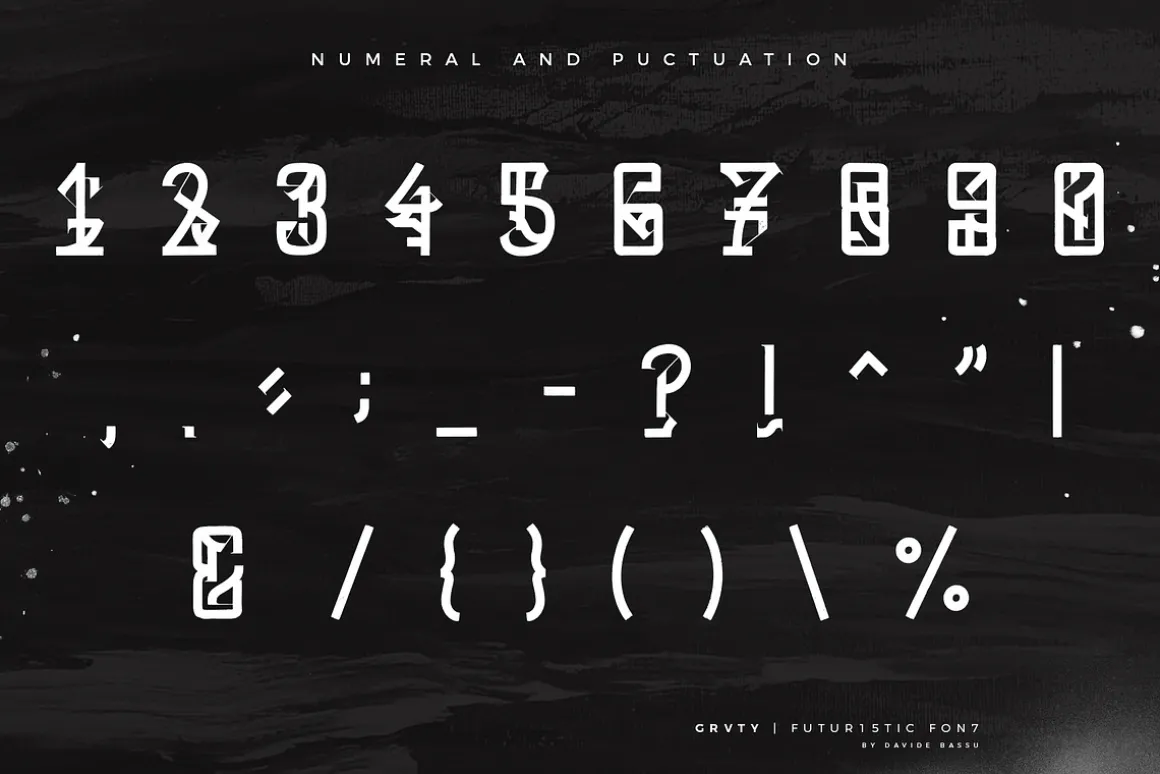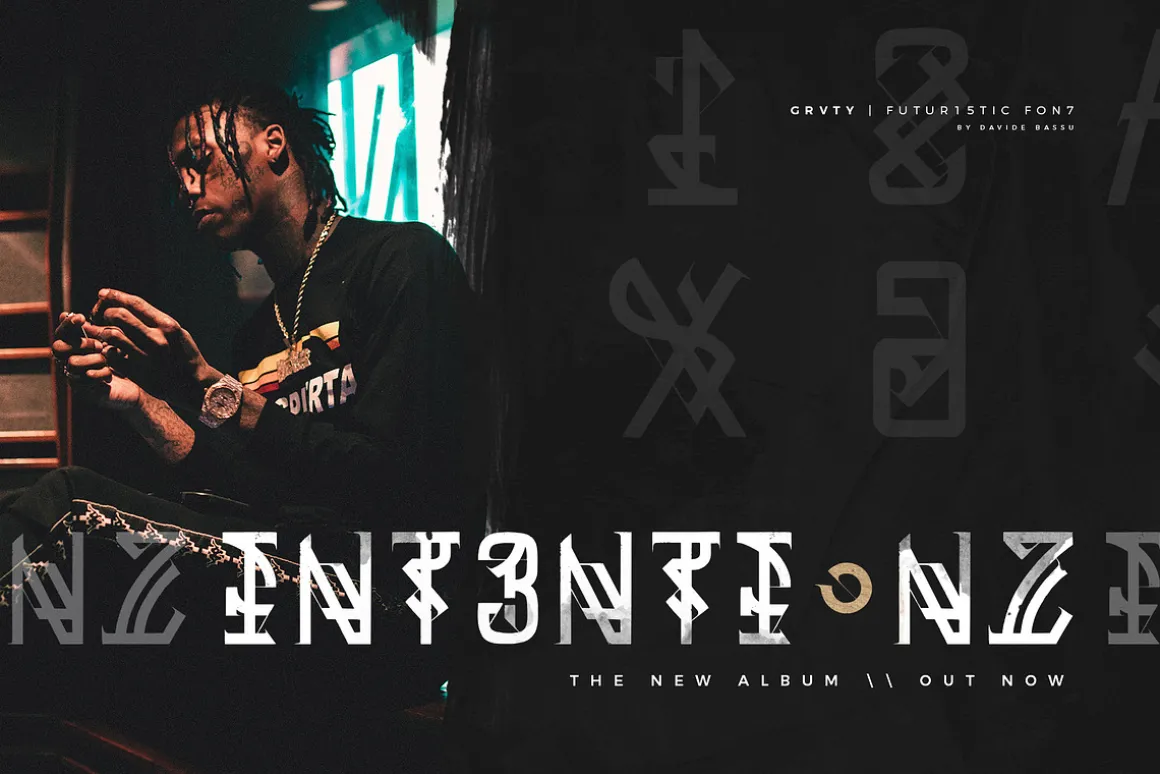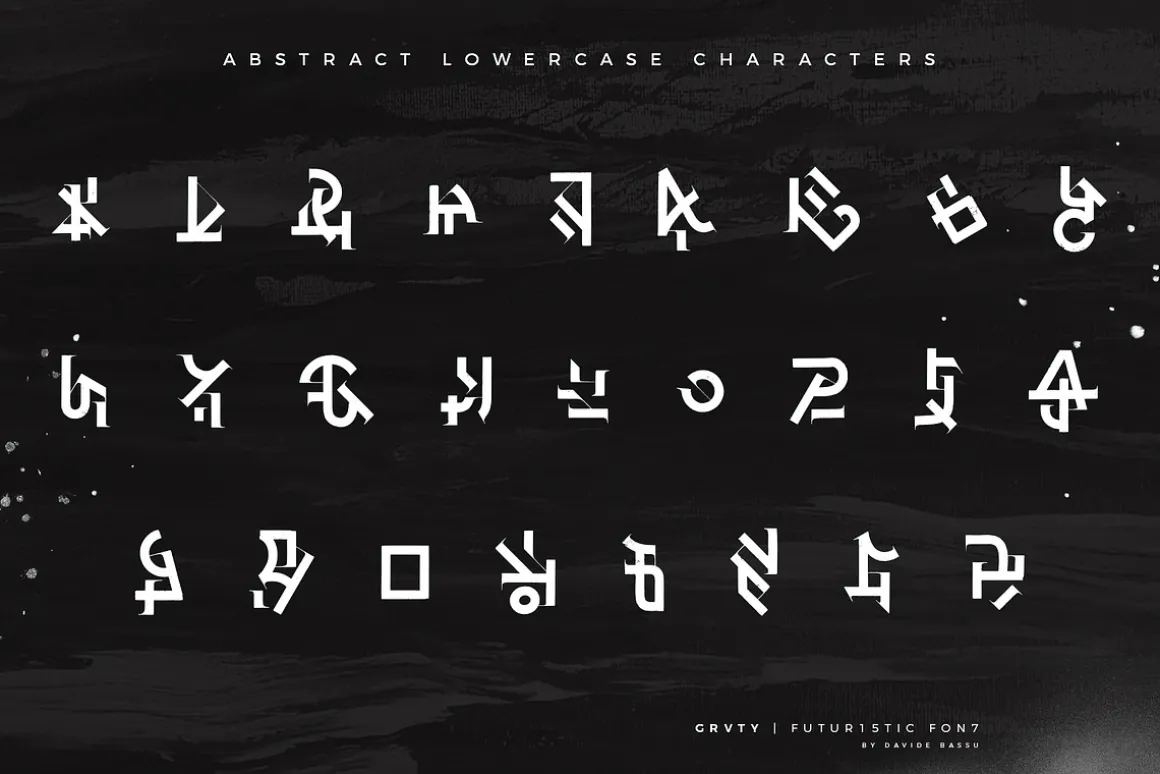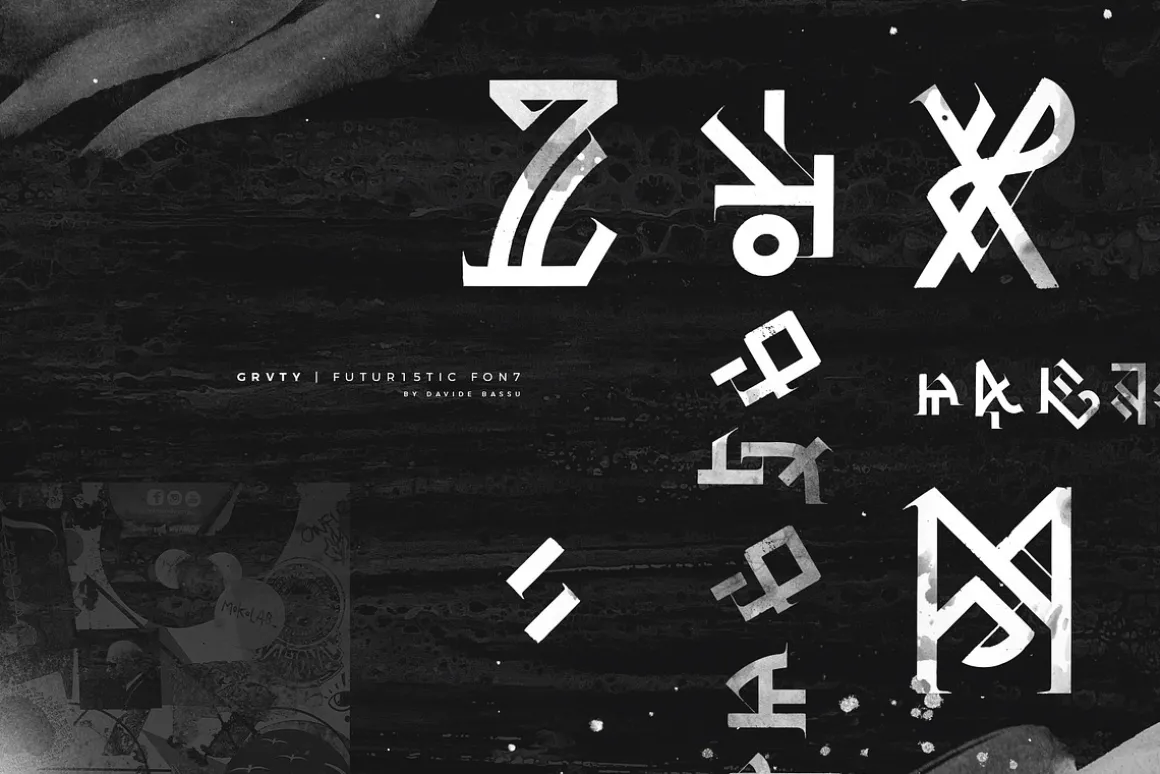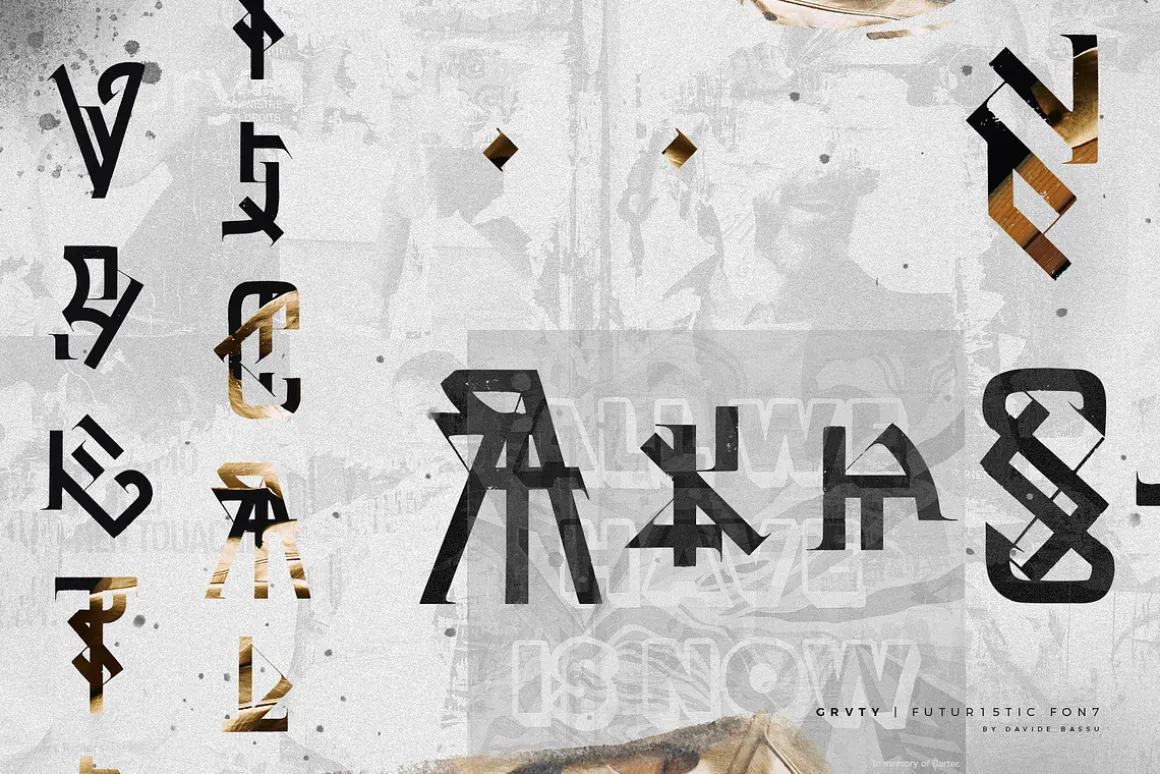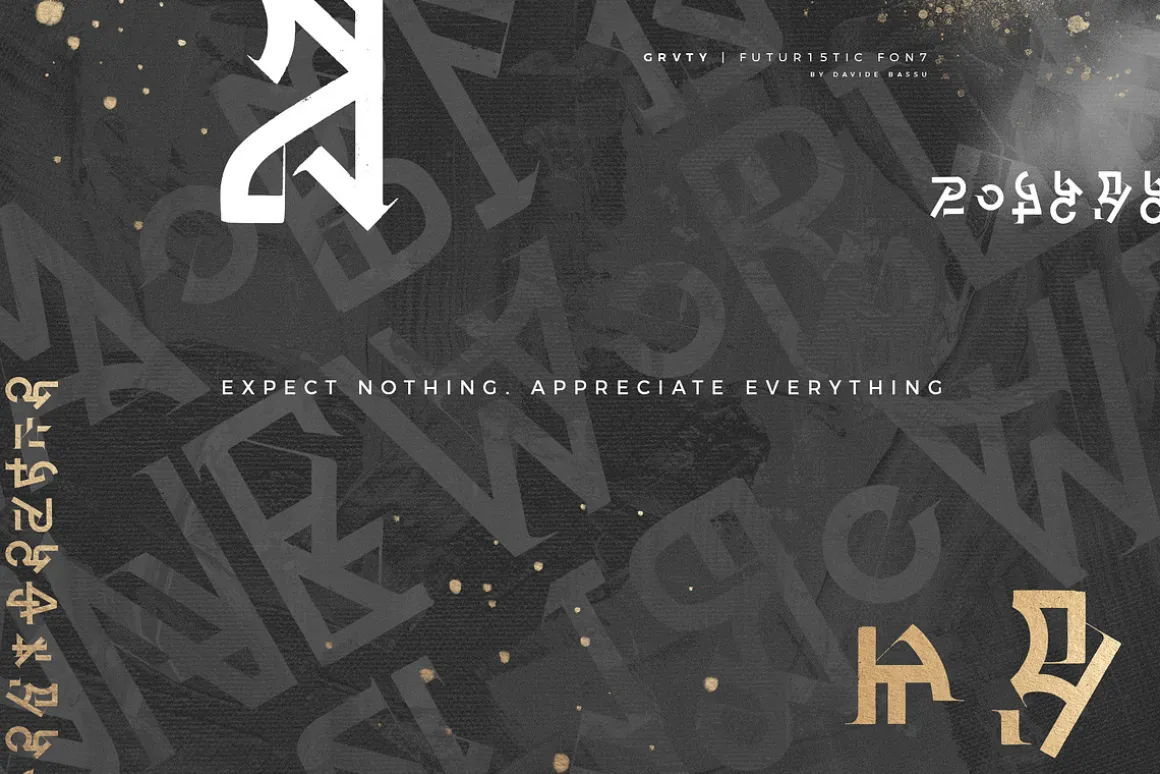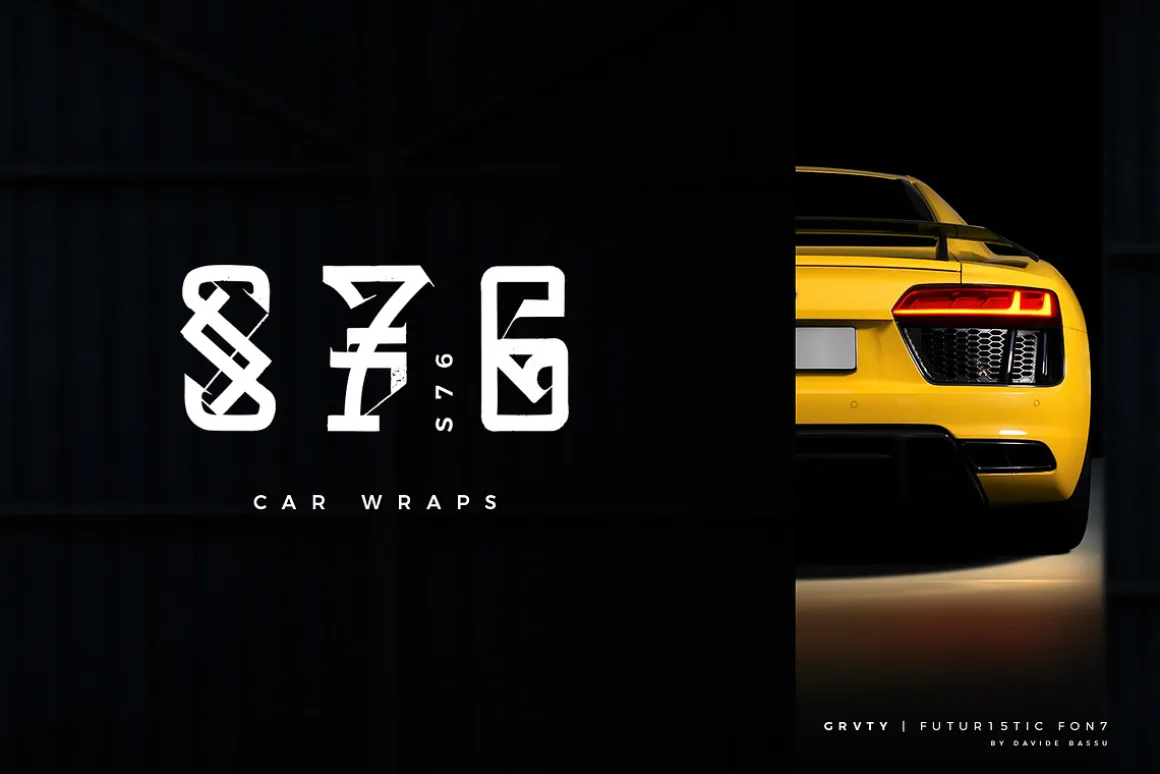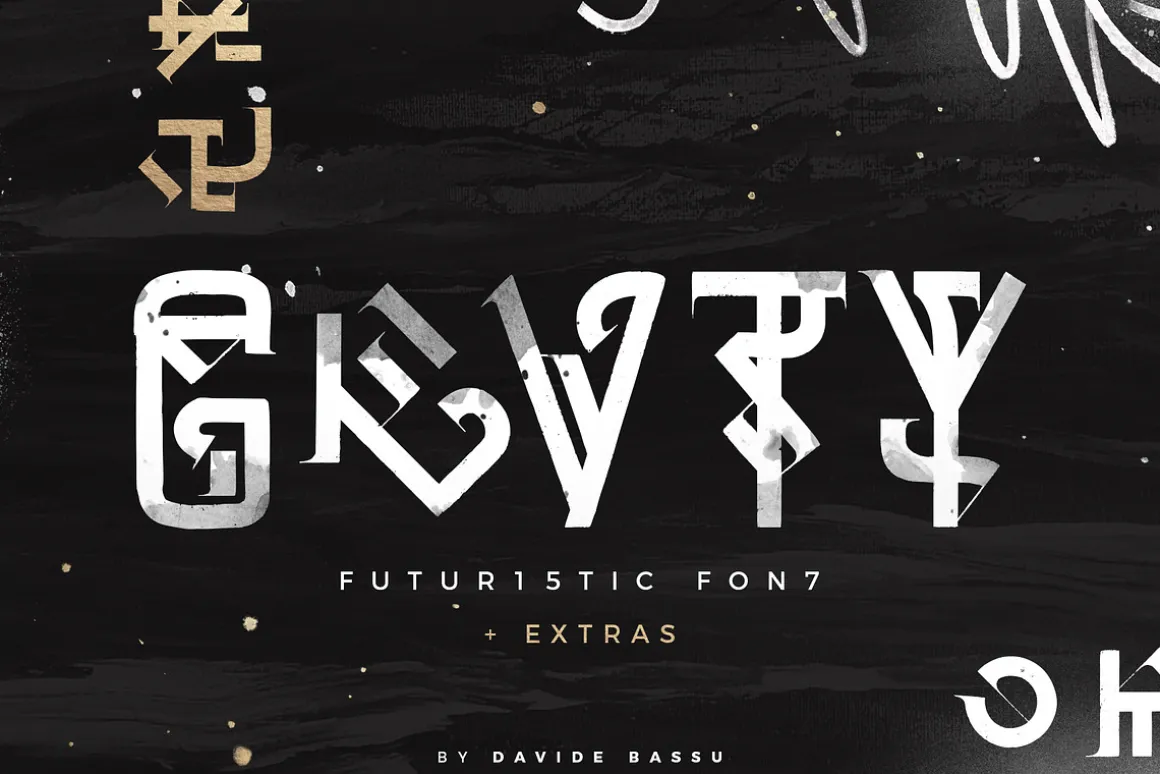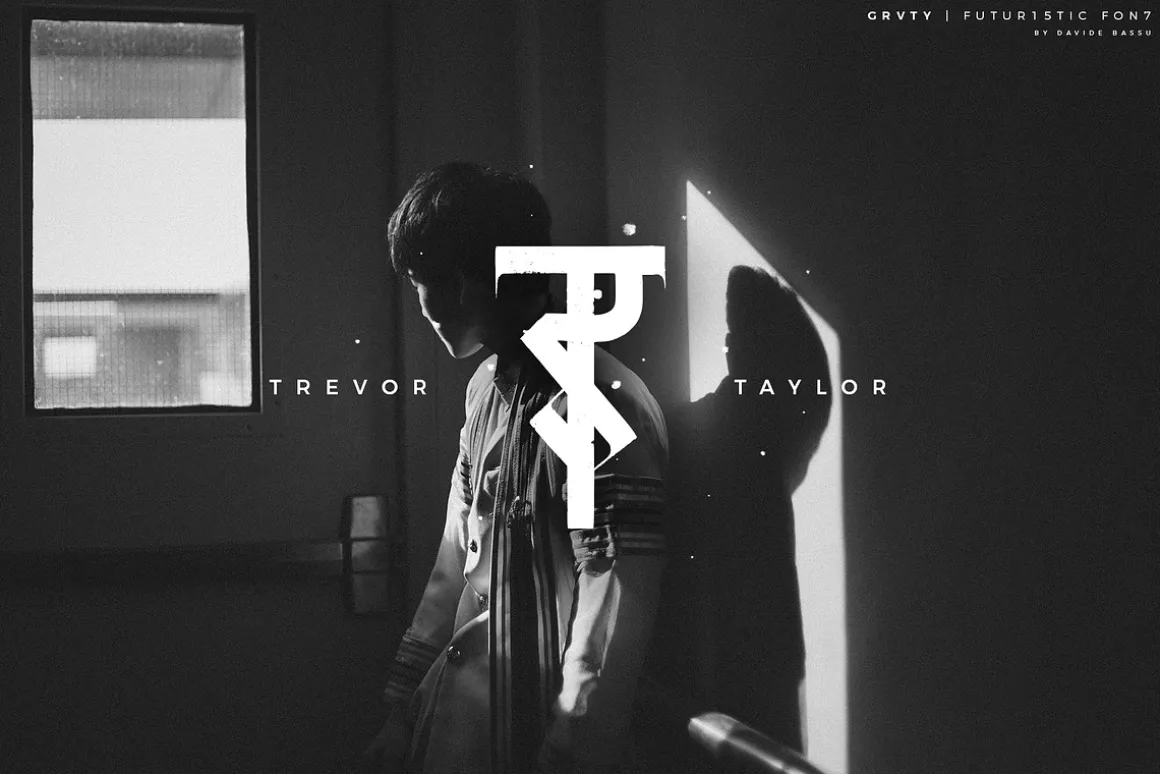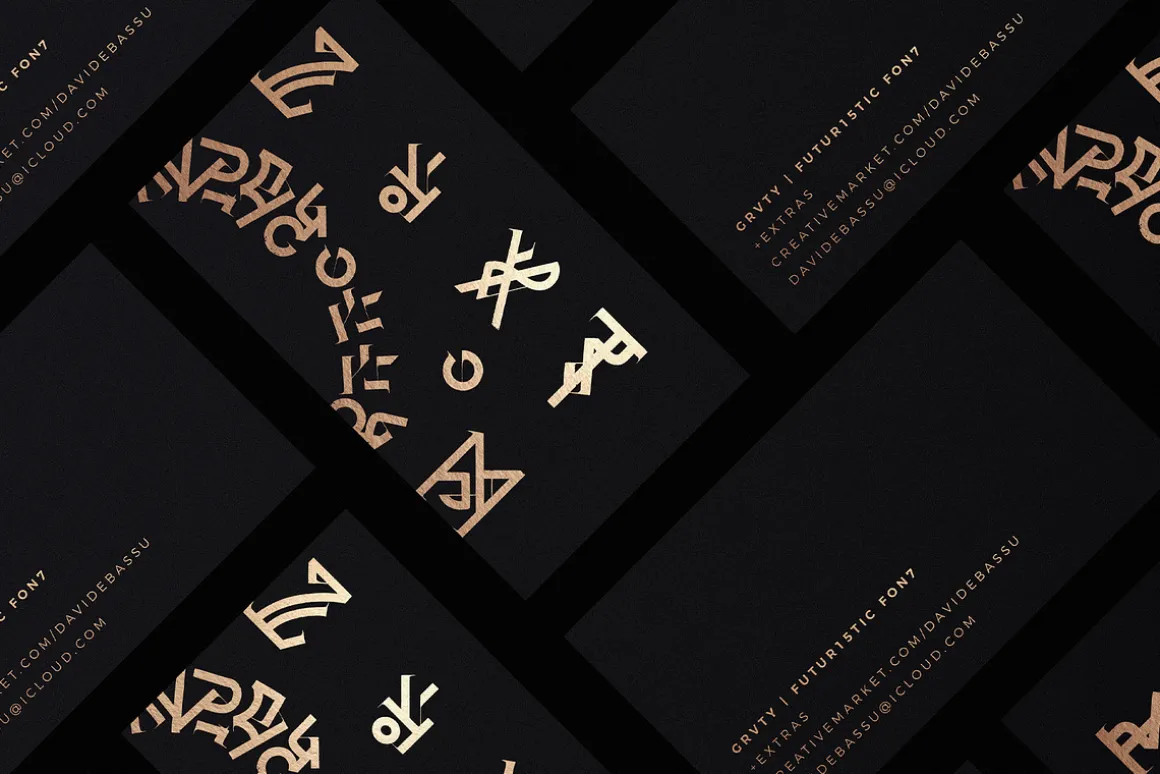
GRVTY or Gravity is a futuristic hand-made font that combines calligraphy, typography, and graffiti. This project is inspired by Calligraffiti, an art form that can be classified as either abstract expressionism or abstract vandalism. Simply put, it is the conscious effort of making a word or group of words into a visual composition.
GRVTY comes with full set of uppercase and abstract lowercase letters, numerals and a large range of punctuation. This font can be used for a lot of design project including branding design, print material, logos, clothing design and so on.